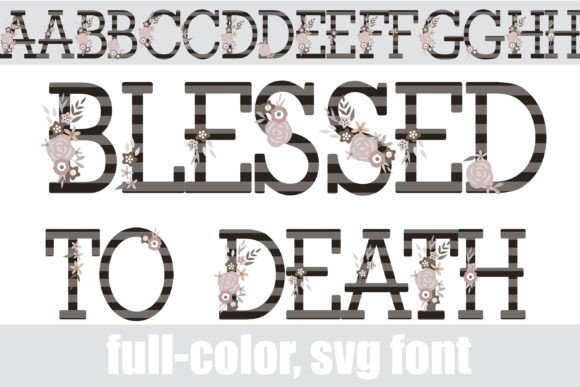
Journey into a world of enchanting beauty and bring your creative visions to life with the Blessed to Death Font, a rich, colorful font family designed to captivate and mesmerize. Dance through a spectral panorama of dark stripes and delicate florals that twirl across your design like a haunting serenade. Explore the profound magic of a hidden alt case that grants you a chromatic symphony of colors to paint your words with vibrant and ethereal strokes.
Unlock a new dimension of design possibilities with OpenType full-color (SVG) fonts. Bid farewell to the mundane and immerse yourself in a symphony of hues, where every letter breathes with vibrant strokes and breathtaking details. Installation is as simple as casting a spell—simply follow the guidance of FontBook on your Mac or utilize your preferred font manager or Control Panel on Windows.
However, be warned: these color fonts possess a mystical charm that may reveal their true beauty only to compatible programs. Embrace the enchantment and witness the transformation as your words morph into radiant masterpieces. Unleash your creative spirit and let the Blessed to Death Font cast its enchanting spell on your designs.